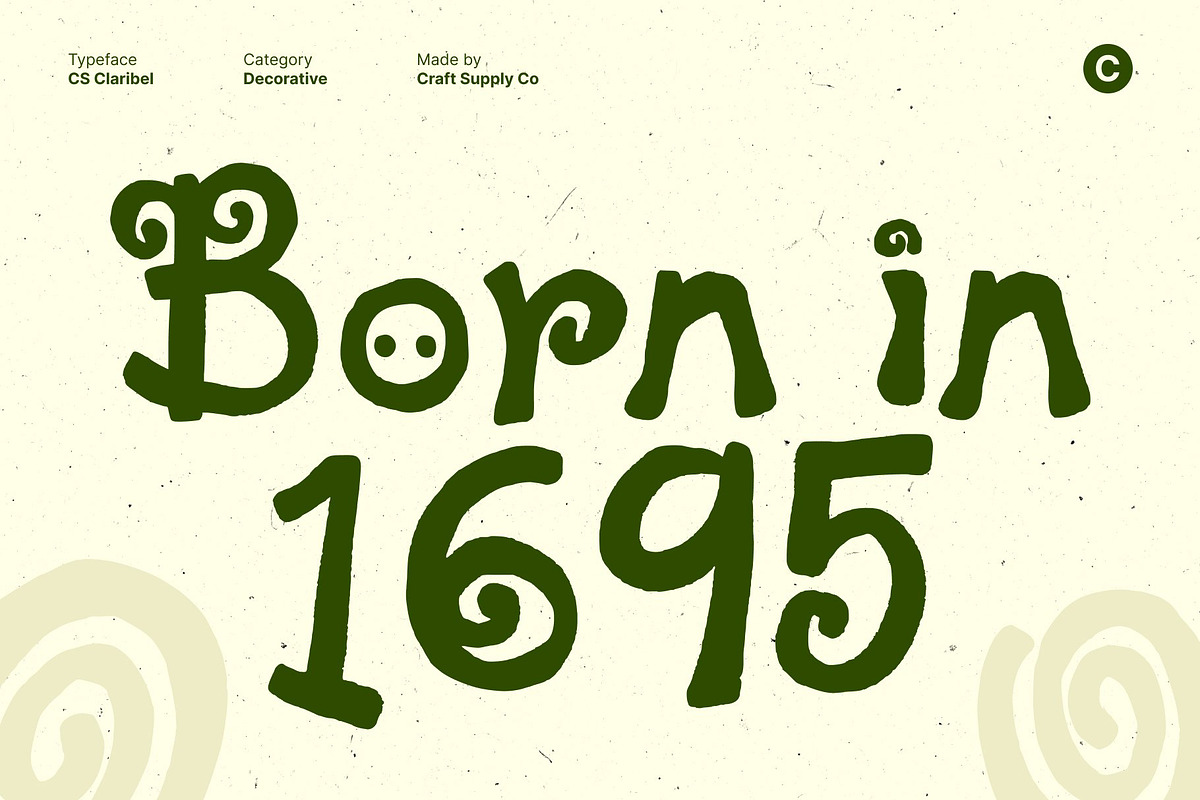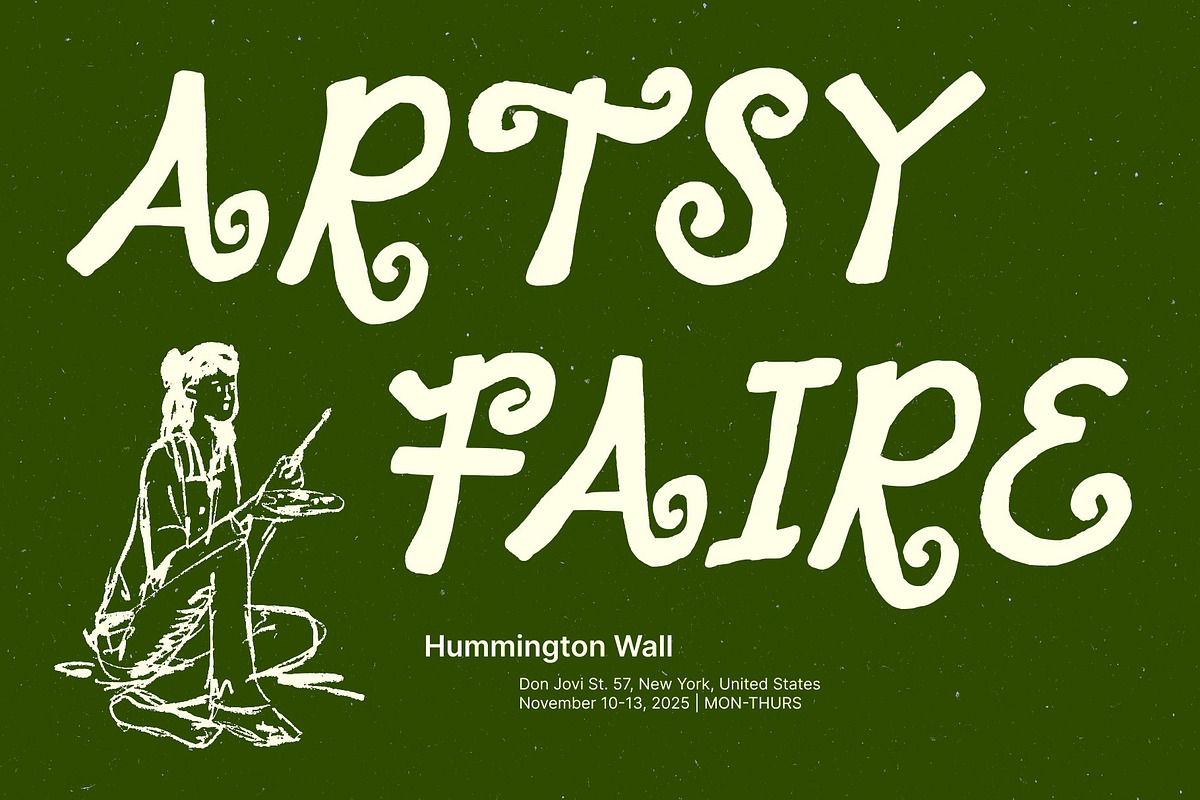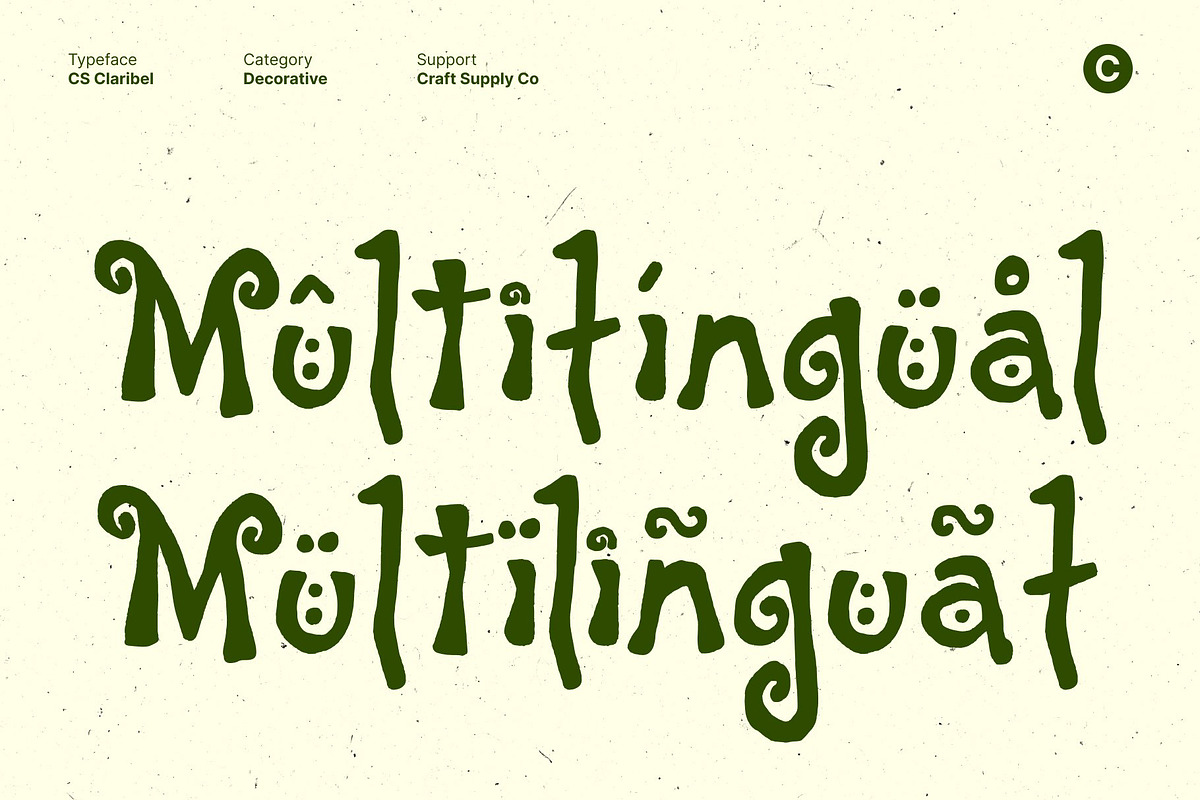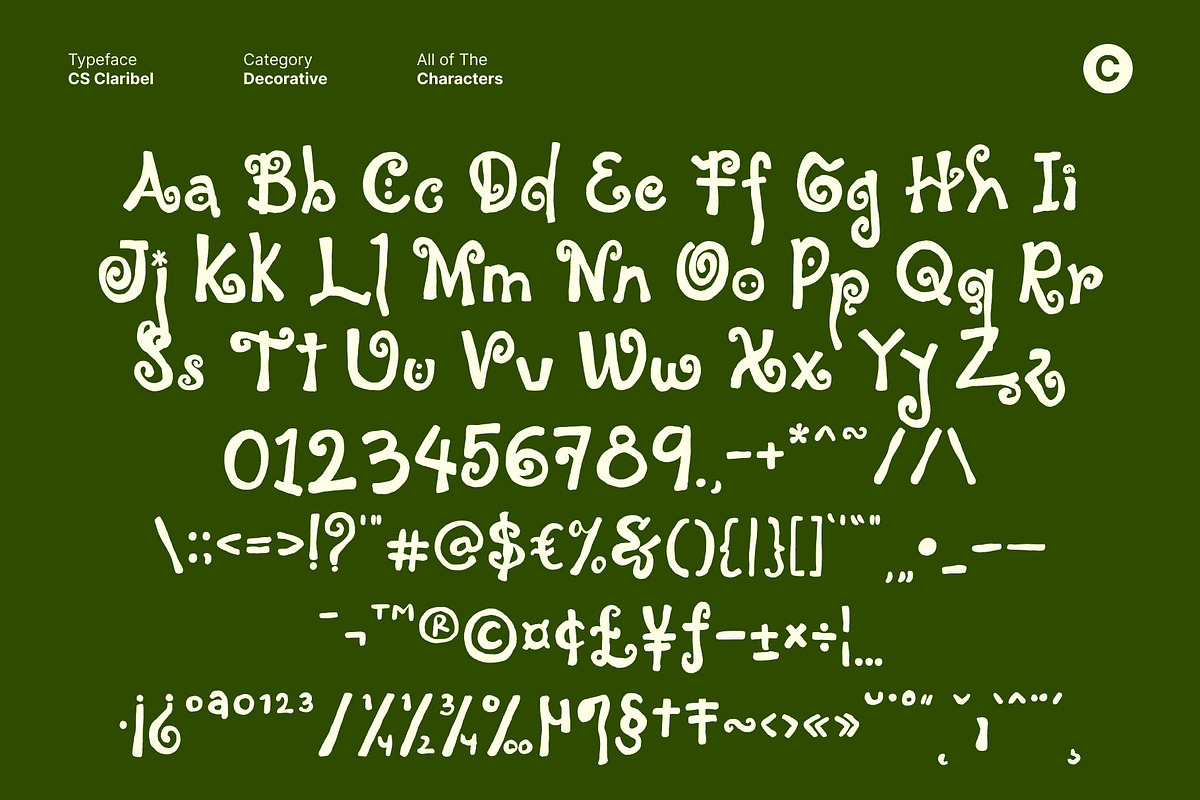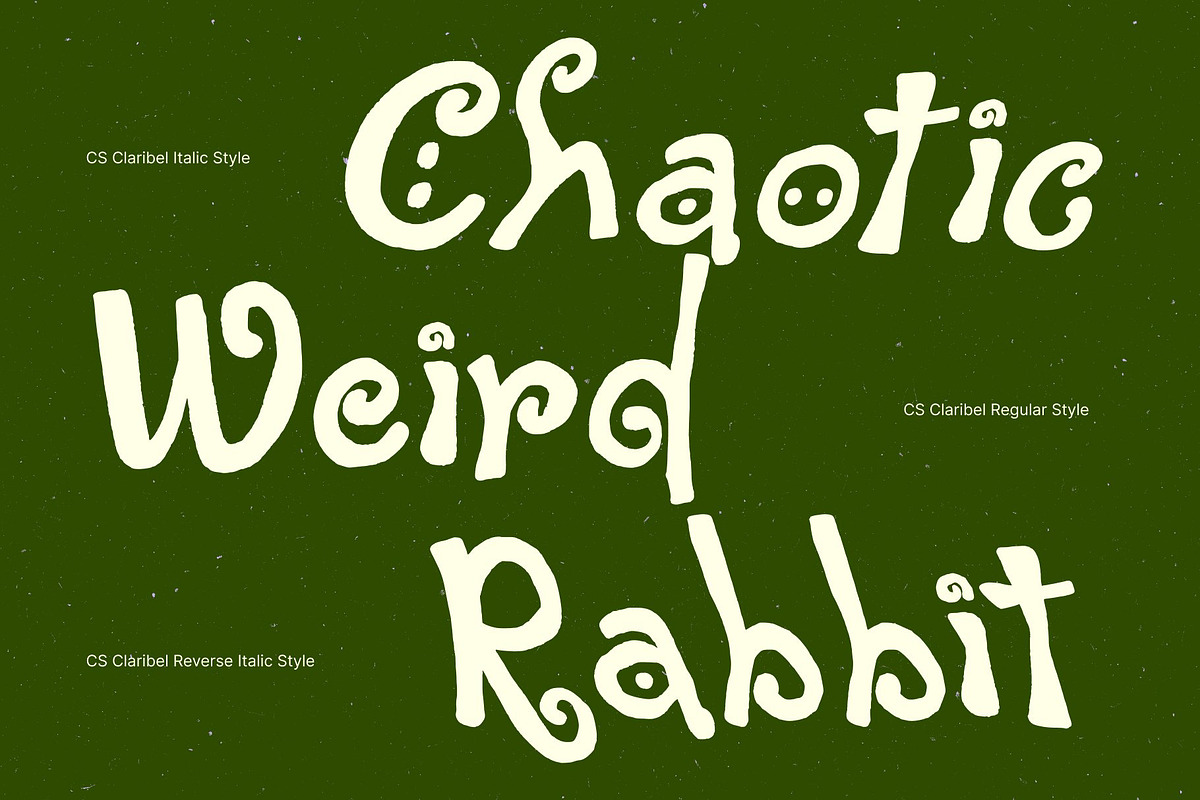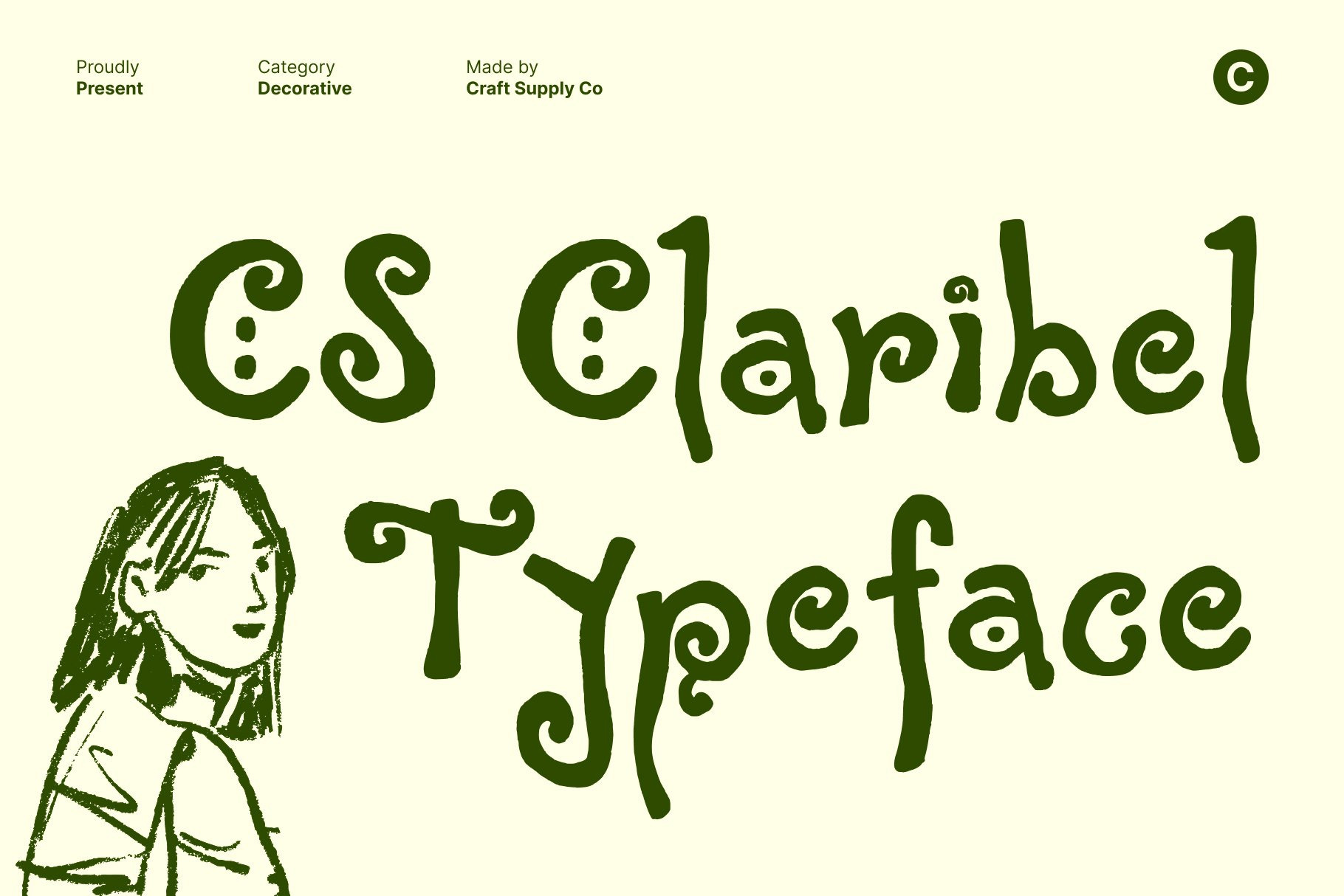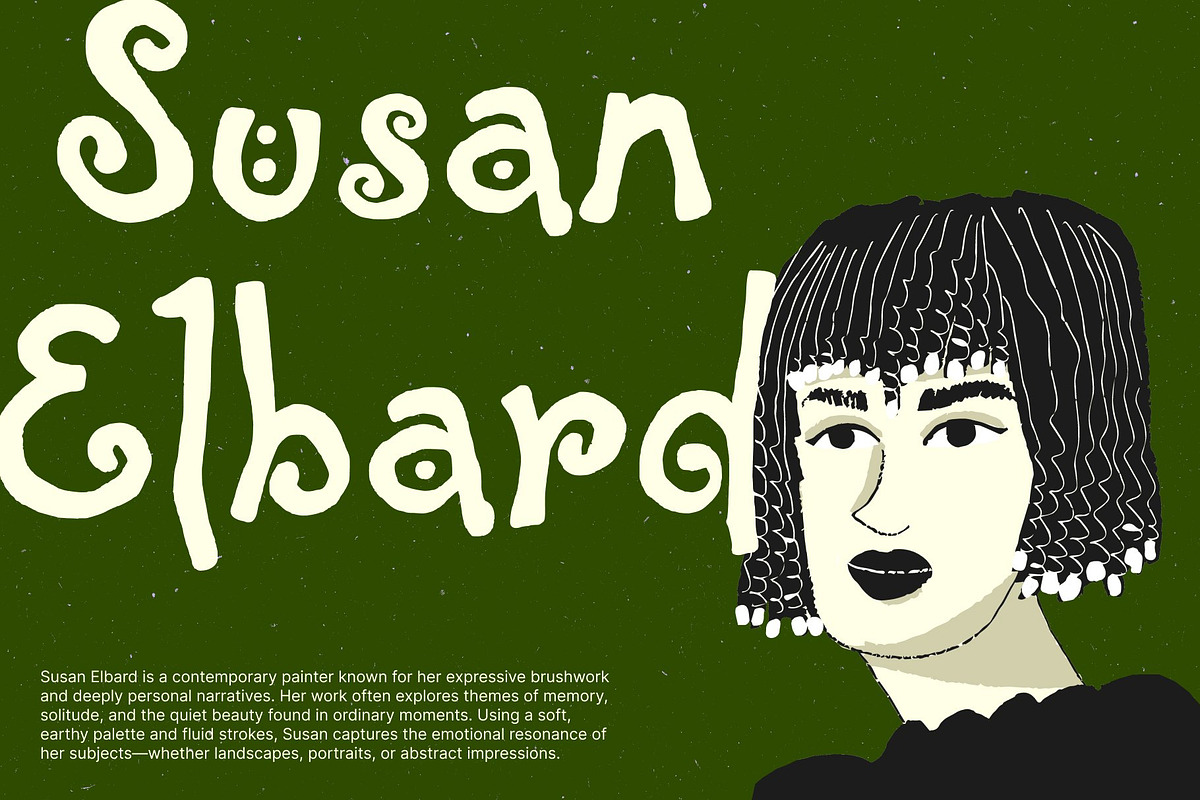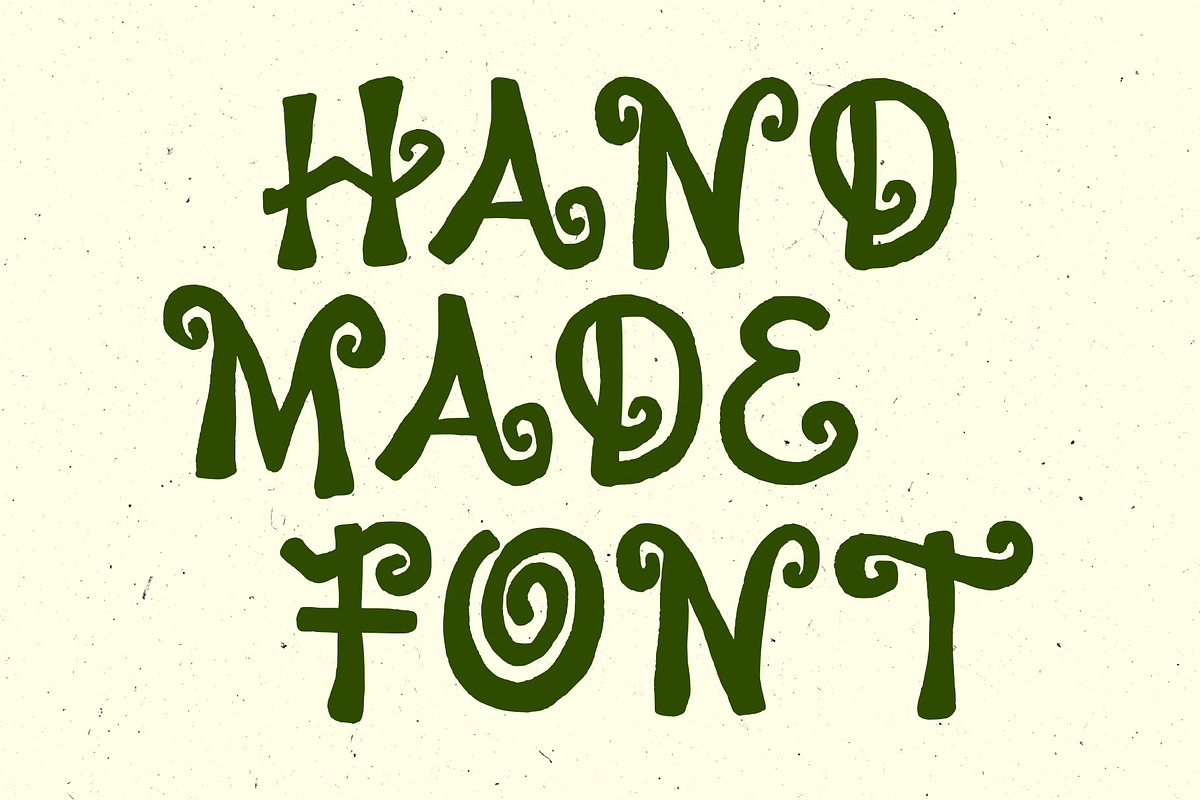
CS Claribel – Decorative Font
CS Claribel – Whimsical with a Touch of Fantasy
Decorative Display Font with Artistic Handwritten Style This is an artistic and ornate decorative display font that brings fantasy inspired beauty to your designs. With its fluid handwritten style and whimsical character, this font evokes the feeling of creativity and imagination. Every curve and stroke is designed to feel expressive and enchanting.
Whimsical Forms with a Fantasy Touch Blending the charm of handwritten artistry with a touch of magical flair, this font creates a unique visual rhythm that feels alive and graceful. Its playful curves and flowing lines give it a storybook-like appeal, ideal for designers who want to infuse their work with creativity and dreamlike sophistication.
Perfect for Invitations, Branding, and Elegant Posters This font shines in elegant and expressive settings whether for wedding invitations, boutique branding, or special event posters. Its decorative strokes and fantasy-inspired style add personality and depth, transforming text into an artistic centerpiece. Each word crafted in this font feels personal, poetic, and beautifully distinctive.
Expressive, Elegant, and Imaginatively Designed More than just a font, this font is a work of art that celebrates individuality and emotion. It’s perfect for creatives who value storytelling through typography. Use this font to bring an artistic, whimsical, and fantasy like touch to your designs, making every piece feel enchanting and unforgettable.